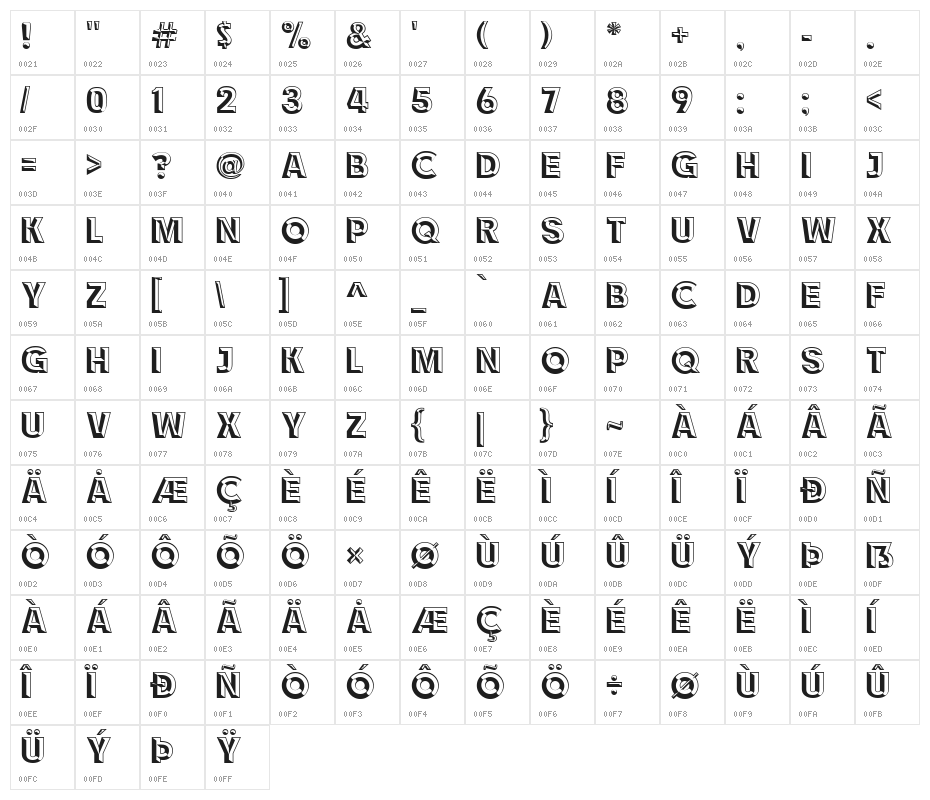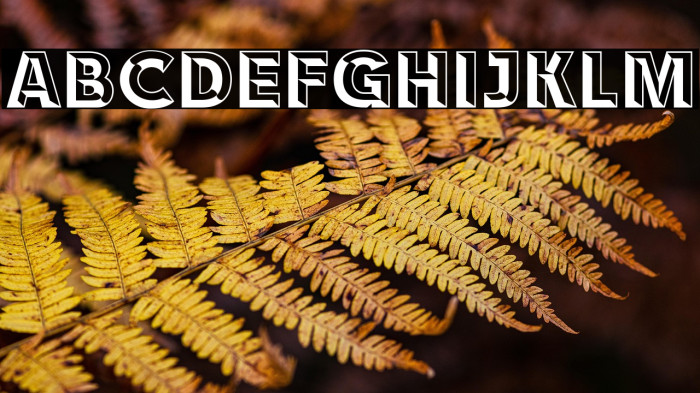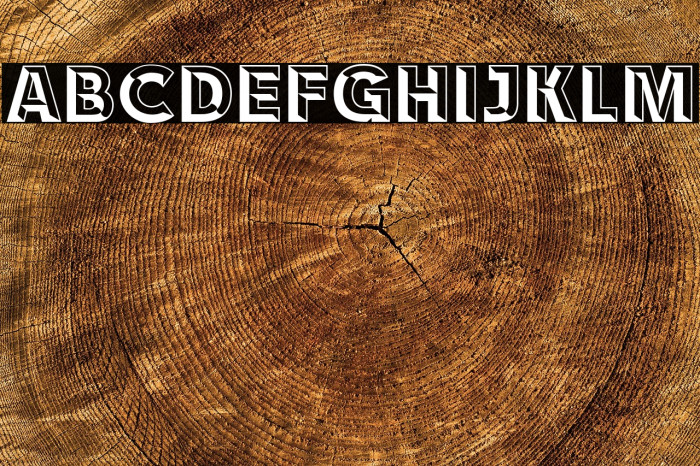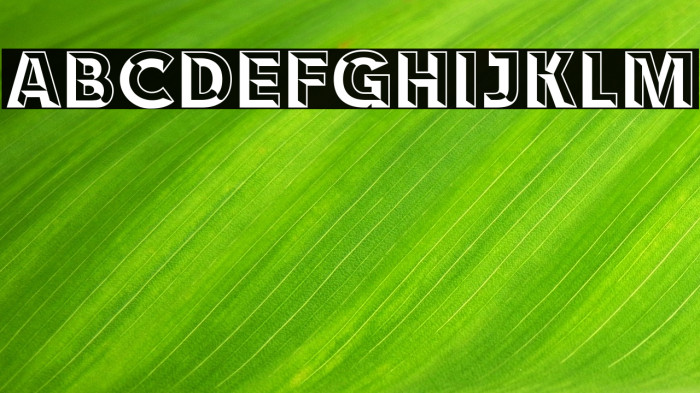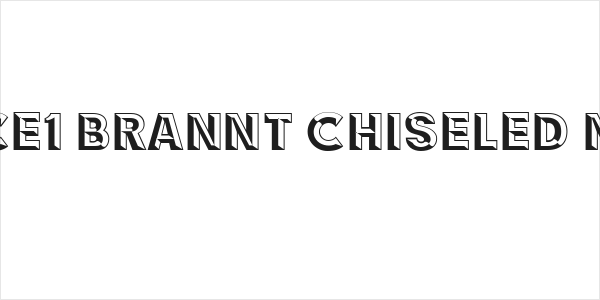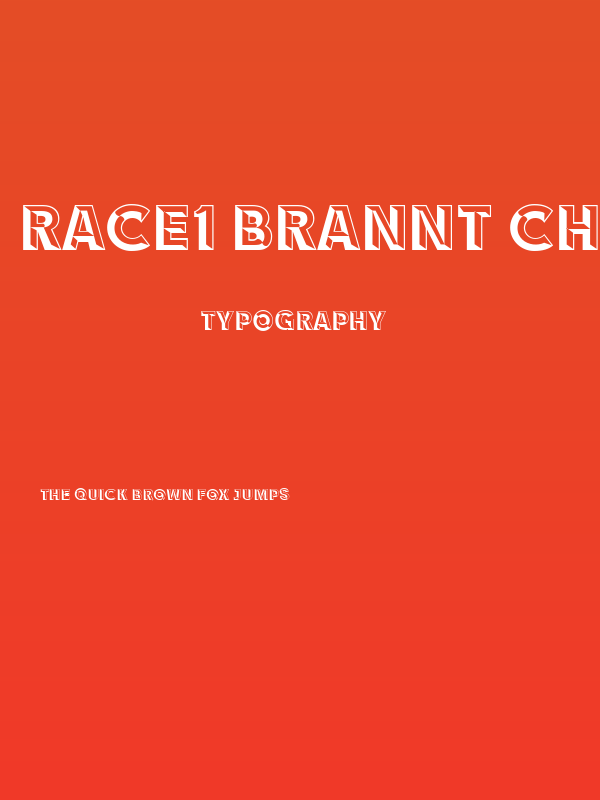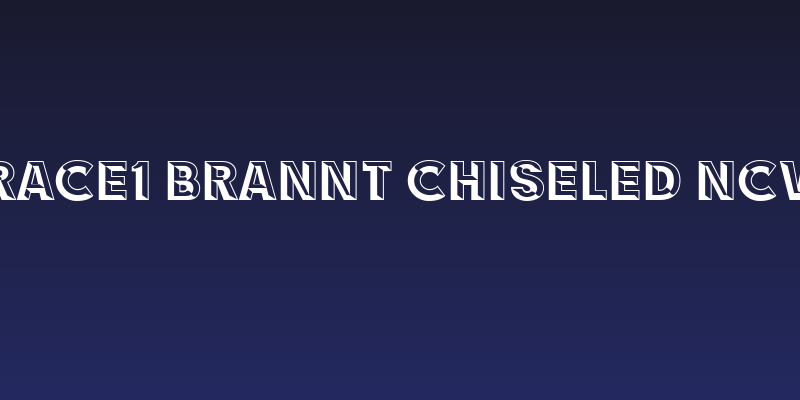
RACE1 Brannt Chiseled NCV Font
RACE1 Brannt Chiseled NCV Description
This font features a bold and chiseled appearance, with a three-dimensional effect that gives it a strong and impactful look. The letters are capitalized with a shadow effect that enhances their depth and presence. The style is reminiscent of vintage signage or classic movie posters, making it ideal for designs that require a touch of nostalgia or boldness. The numbers and special characters maintain the same chiseled effect, ensuring consistency across all elements. This font is perfect for projects that need to stand out and make a statement.
| Proposed Projects | Ideal for posters, logos, headlines, and any design requiring a bold, impactful look. |